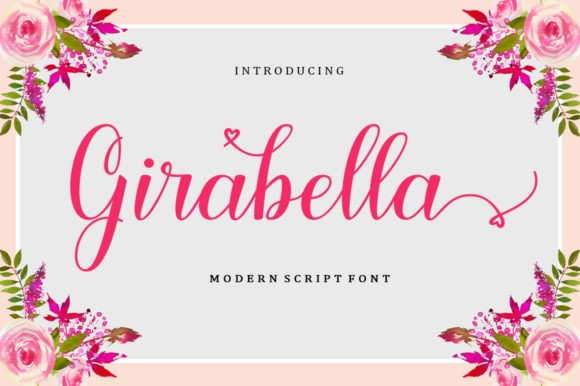
Girabella Font
Looking for a unique, stylish, and fun font for your next project?  Girabella Calligraphy Font is a beautiful & elegant handwritten script. Fall in love with its lovely curves!